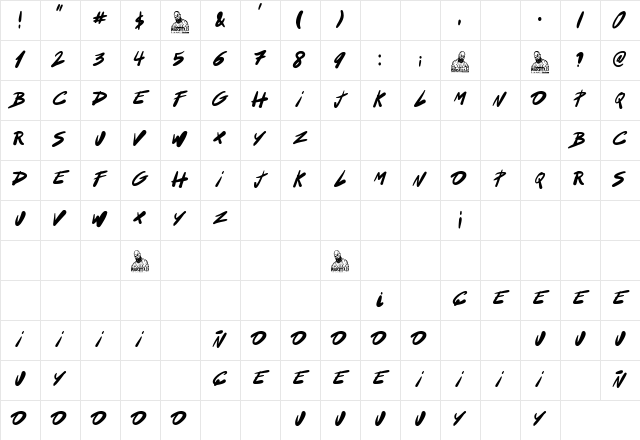
Acapulco Night Fever Regular
Designer: Woodcutter Manero
Design Context for Acapulco Night Fever
Acapulco Night Fever is a composed and adaptable typeface that performs quietly and consistently across a wide range of design contexts.